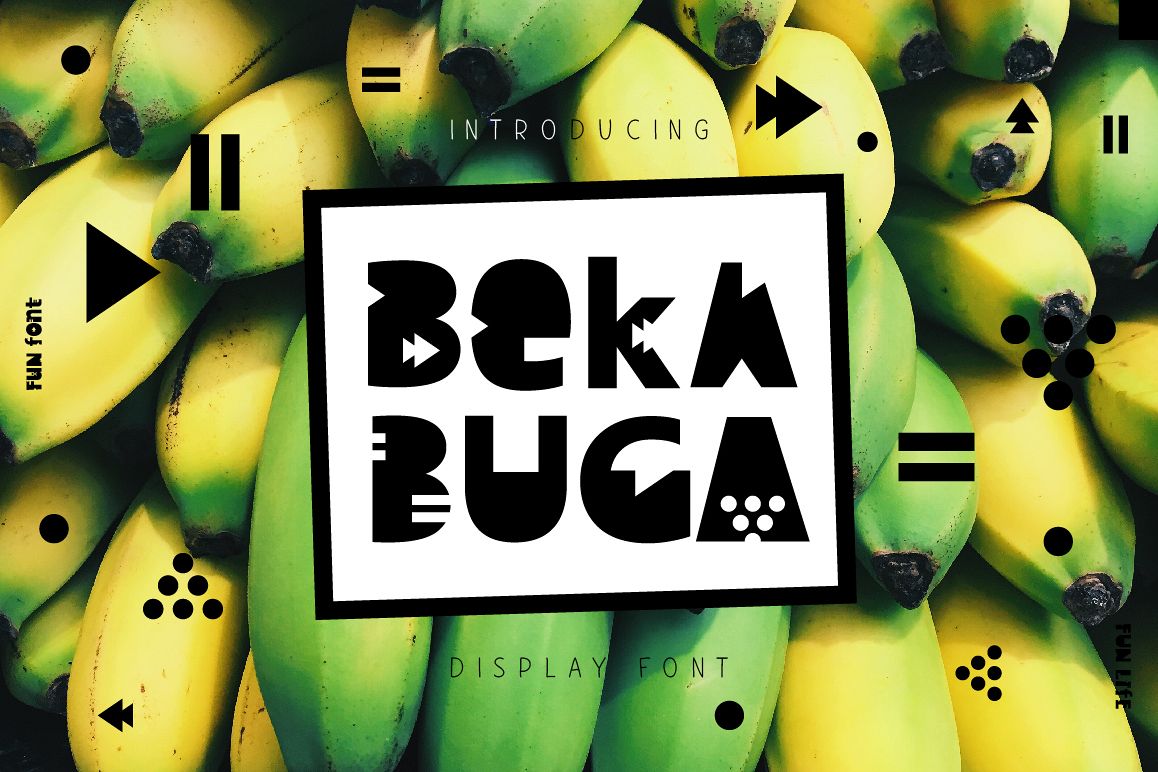
Bekabuga Display Font
bekabuga
Bekabuga is a fun kids font, consisting of geometric cuts. It contains a full set of lower & uppercase letters, large range of punctuation, numerals, cyrillic characters and international support.
Perfect for logos, quotes, posters, branding projects, product packaging, t-shirt, book cover, greeting cards and applicable for any graphic design.